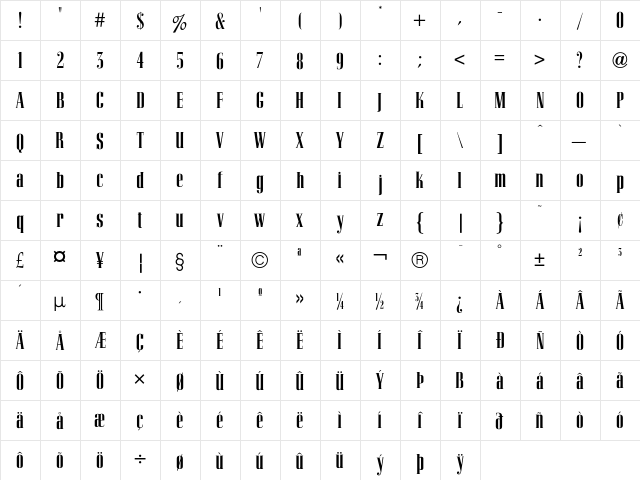
CorvinusSkylineICG Regular Font Preview
CorvinusSkylineICG Regular
Design Context for CorvinusSkylineICG Typeface
CorvinusSkylineICG takes a measured approach to typography — its balanced proportions and neutral character make it a reliable workhorse for both digital and print work.